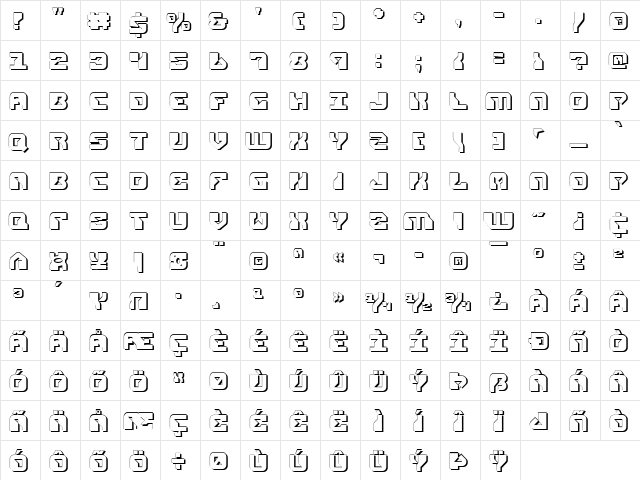
Replicant Shadow Shadow
Design Context for Replicant Shadow Typeface
Replicant Shadow is built around its visual character rather than neutral utility — its distinctive forms are designed to make an impression at display sizes.
Font Pairing: Pair with a clean neutral sans-serif for body copy to let Replicant Shadow's character lead without overwhelming the composition.
Pro Tip: Treat Replicant Shadow as the centrepiece of your typographic hierarchy. One strong heading set in a decorative face can carry an entire layout.